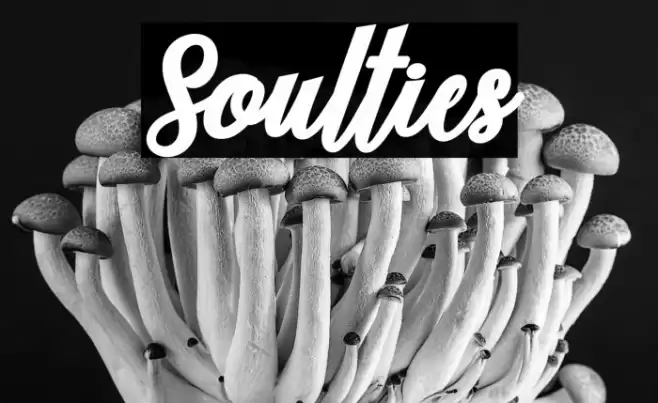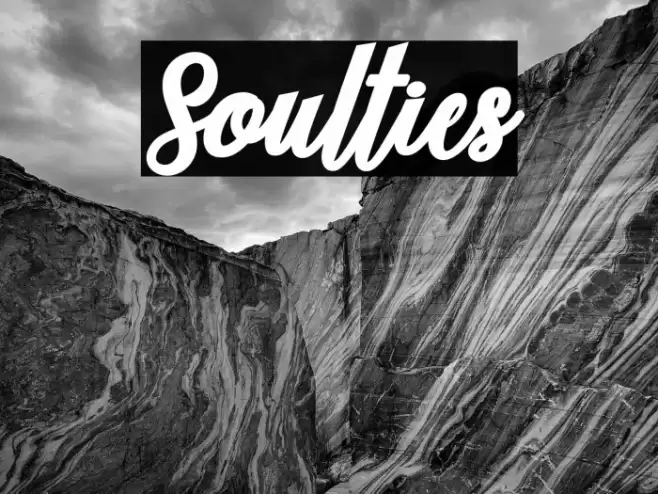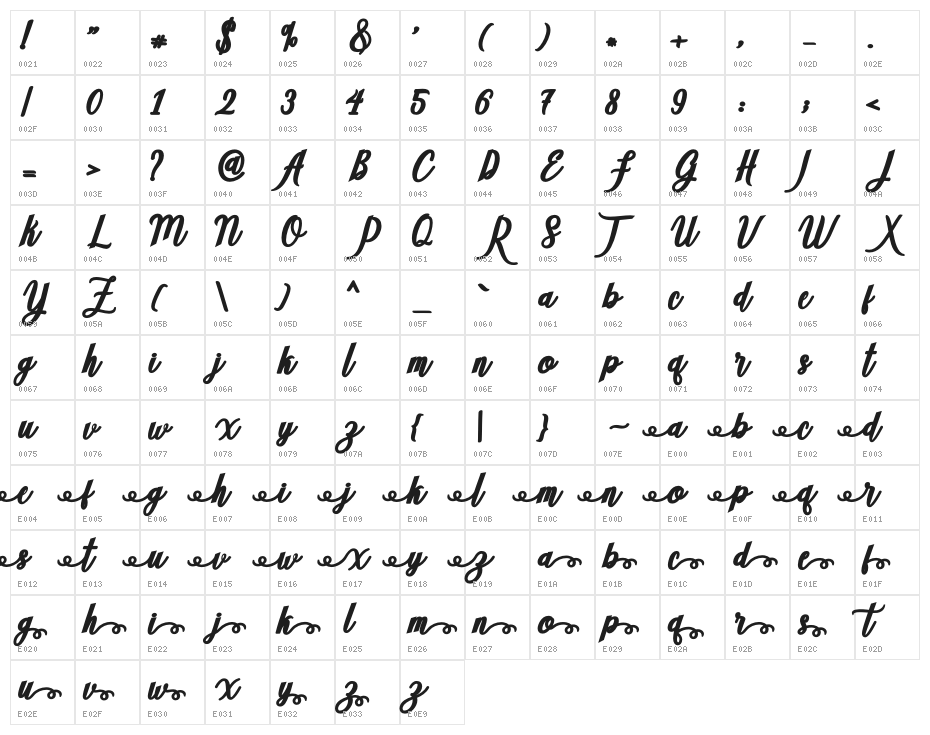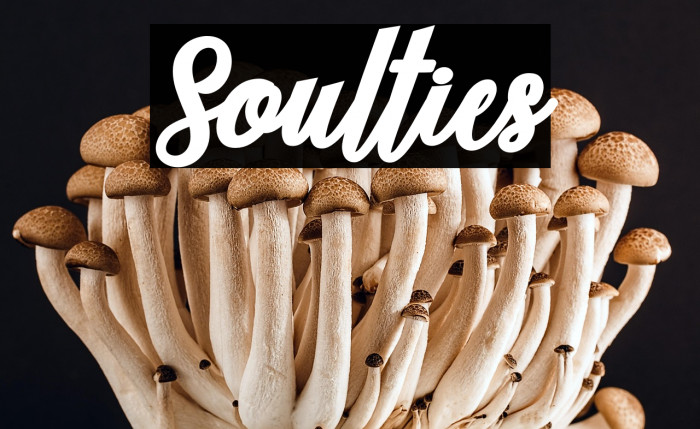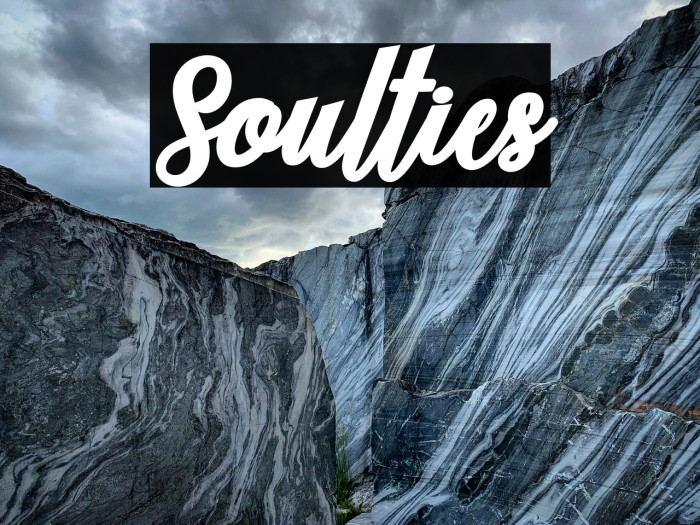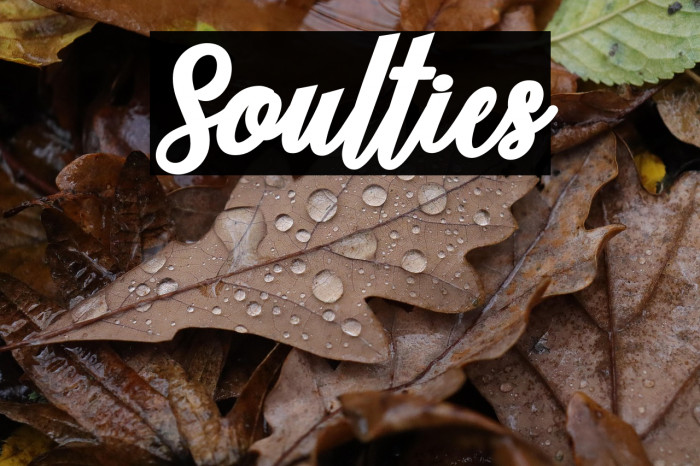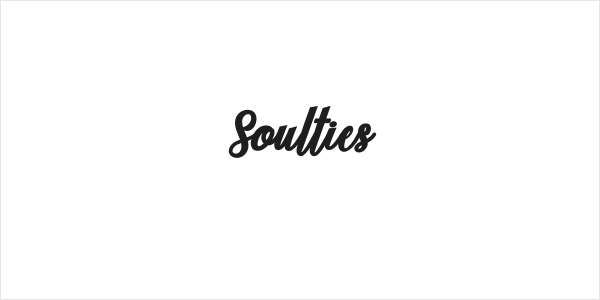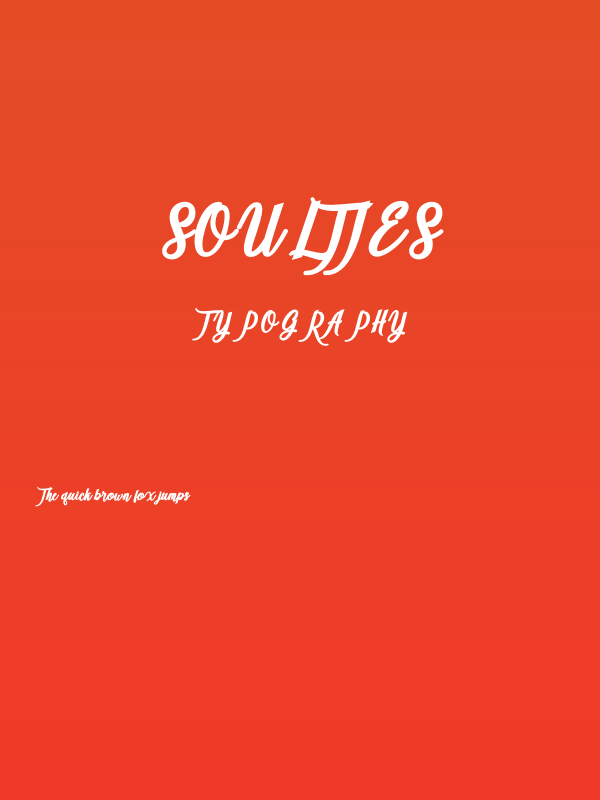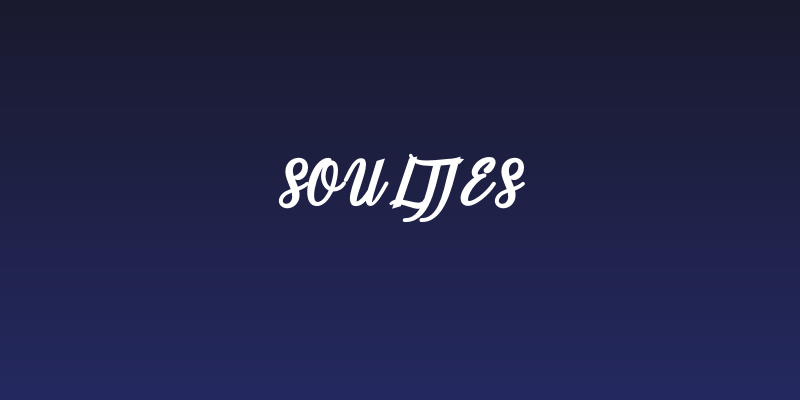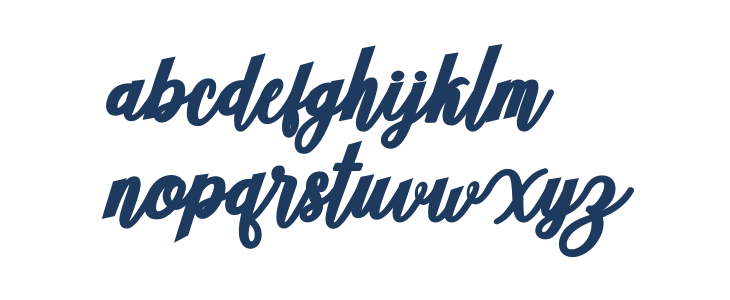
Soulties Font
Soulties Description
This font features a bold, flowing script style that exudes elegance and sophistication. The uppercase letters are slightly slanted, with smooth curves and a consistent stroke width that gives a sense of fluidity. The lowercase letters maintain the same flowing style, with some characters extending below the baseline, adding a touch of dynamism. The numerals are bold and clear, matching the overall aesthetic of the font. Special characters are well-integrated, maintaining the script's cohesive look. This font is ideal for projects that require a touch of elegance and personal flair.
A bold, flowing script font with elegant curves and consistent stroke width from Regular fonts.
- Proposed Projects: Ideal for wedding invitations, branding, logos, and elegant signage.
- Overall Style: Elegant
- Use Case: Logos, Invitations, Branding